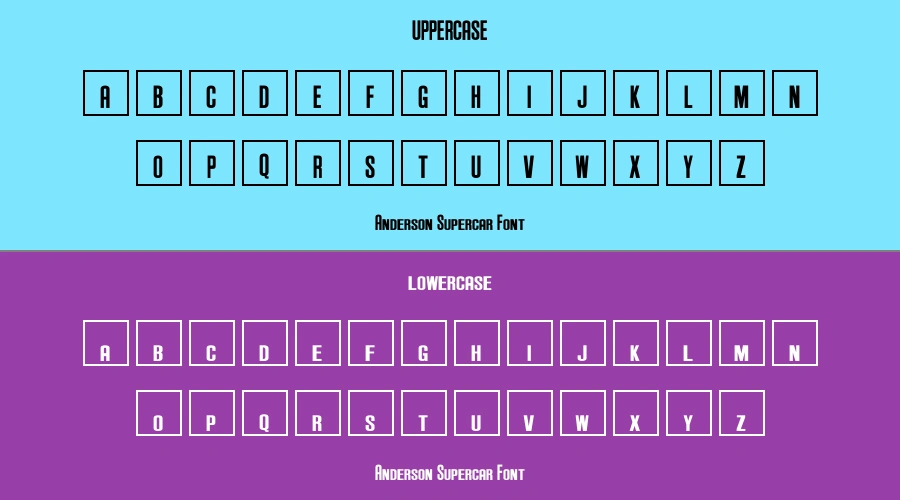
About Anderson Supercar Font
Anderson Supercar Font represents a sophisticated approach to type design, balancing modular forms with durability. Perfect for advertising headers, this font family showcases impressive accuracy and technical excellence throughout its character set. Designers appreciate its versatility and reliability.
Designers will appreciate nuanced touches including curved brackets and initial forms, adding sophistication to any project. These features become apparent in certification marks, where OCR compatibility matters most. The careful treatment of contrast level and market positioning ensures optimal performance.
Anderson Supercar Font |